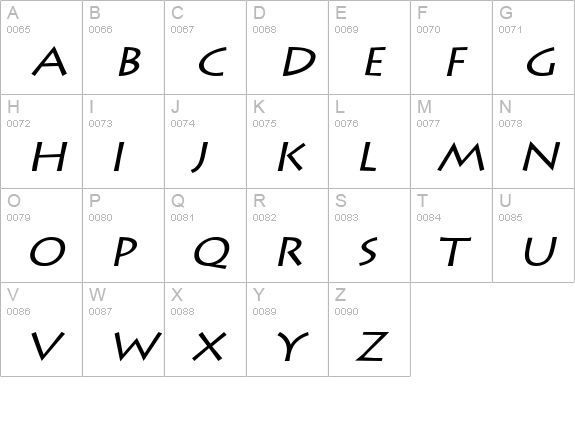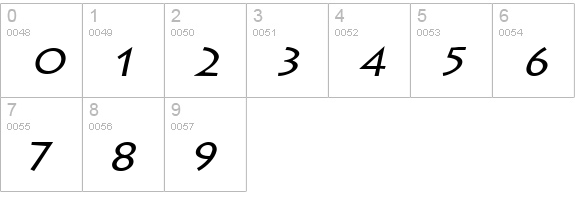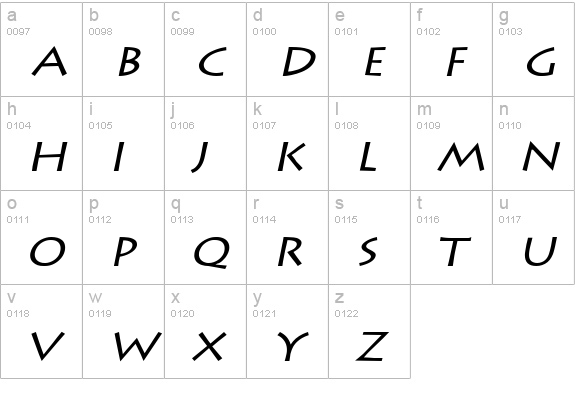
Liste Wide Italic Font Details
Liste Wide Italic is a distinctive, extended-width, italic variant in the Liste typeface family \xE2\x80\x94 well suited to design and typography projects.
Liste Wide Italic is a stylish and modern font that exudes elegance and sophistication. Its distinctive italic style adds a touch of flair to any design project, making it perfect for headings, titles, and other eye-catching text. The sleek and elongated letterforms of Liste Wide Italic create a sense of movement and flow, making it a versatile choice for both digital and print applications. The best part? Liste Wide Italic is available for free download at FontsMarket.com! You can easily enhance your design projects with this beautiful font without having to spend a dime. Whether you're working on a website, a poster, a flyer, or any other creative endeavor, Liste Wide Italic is sure to make a lasting impression. Don't miss out on this opportunity to add Liste Wide Italic to your font collection. Download it for free today and elevate your designs with its unique charm and elegance.